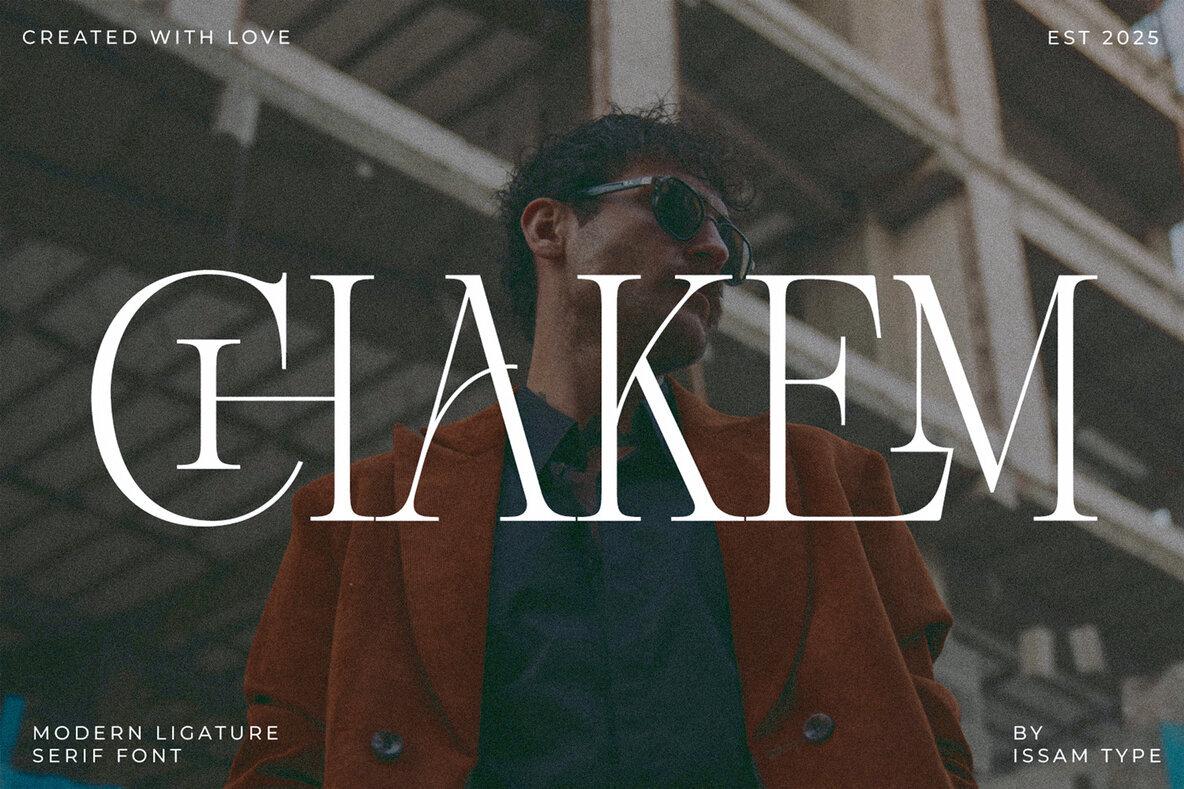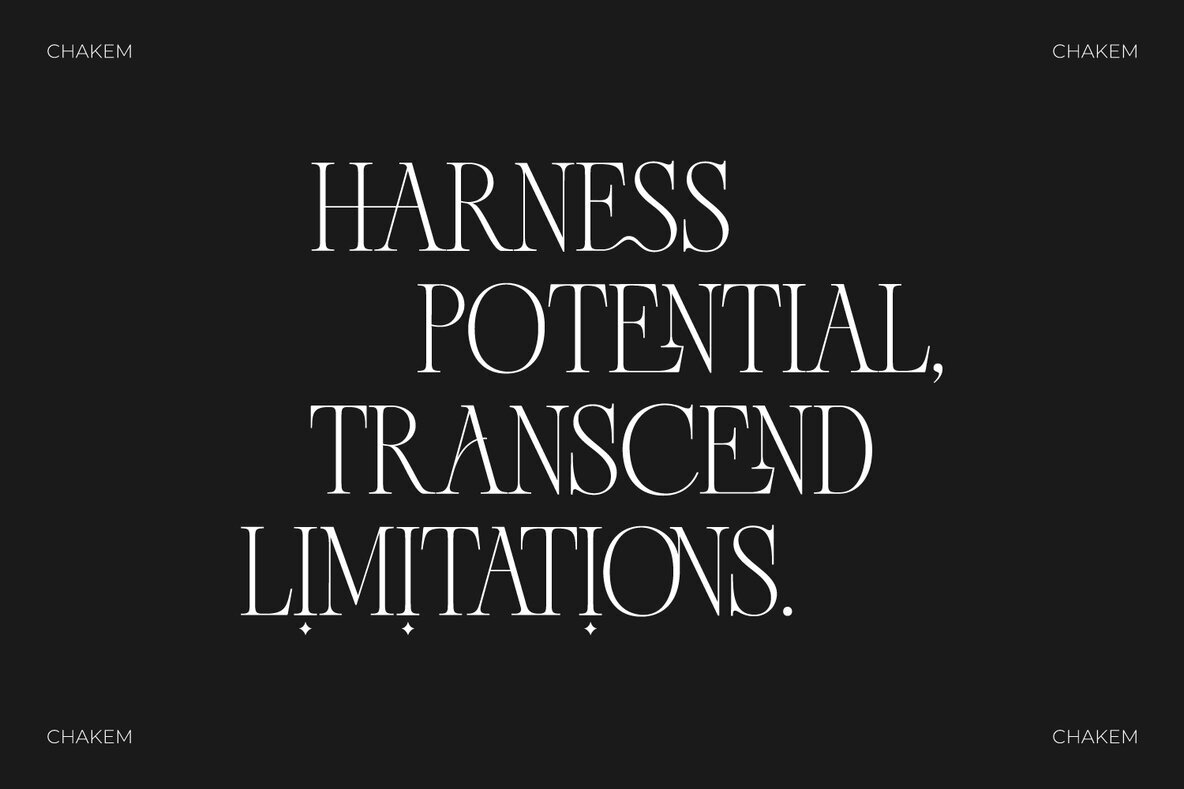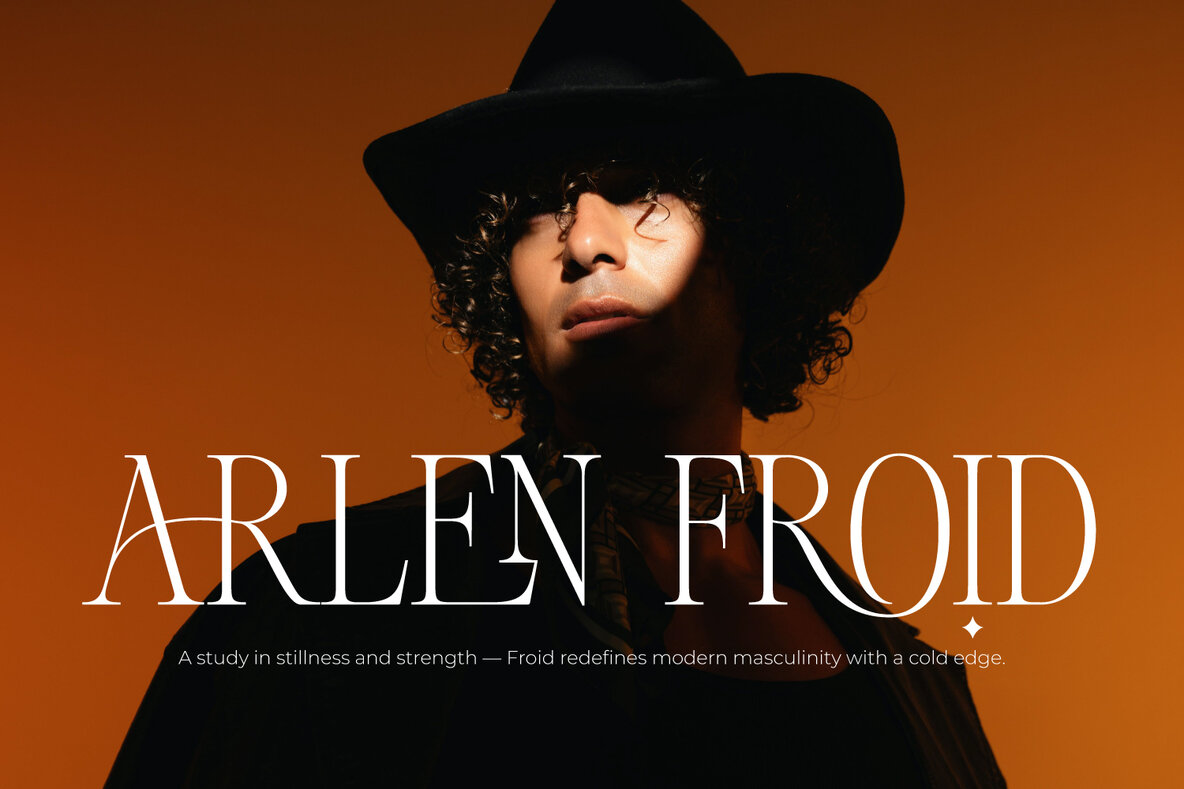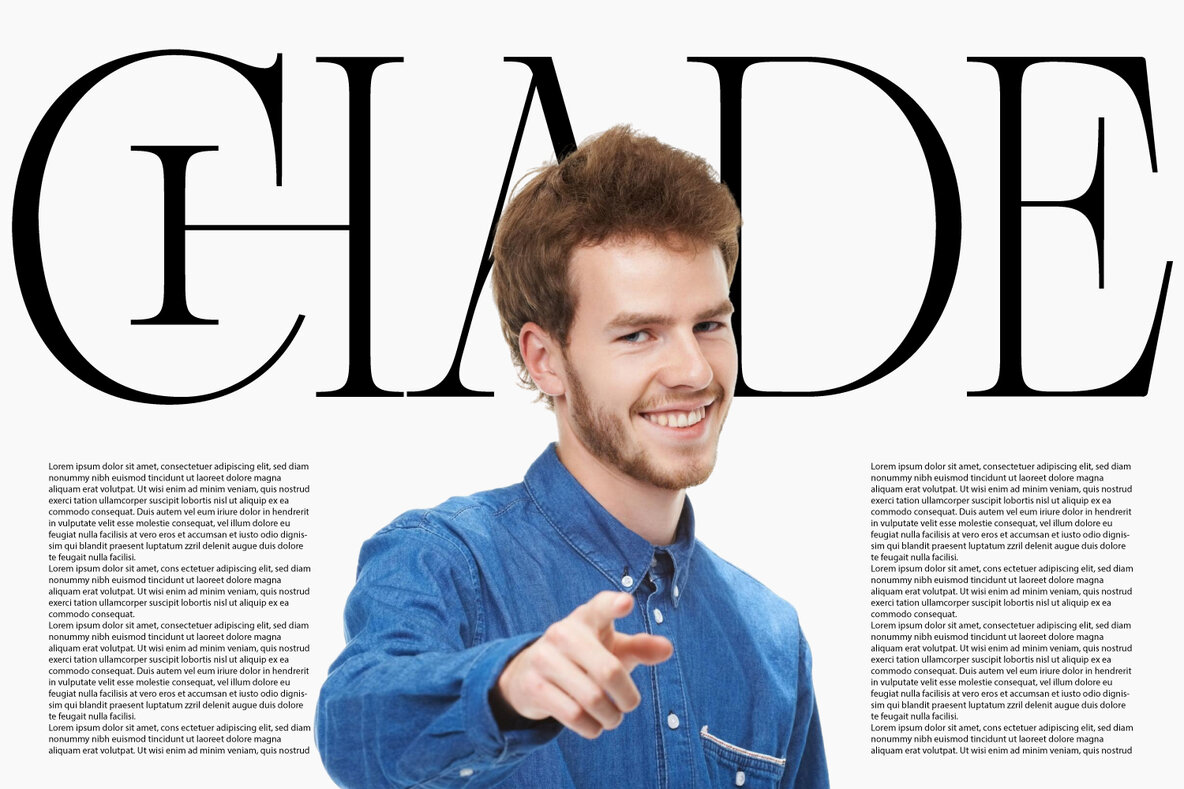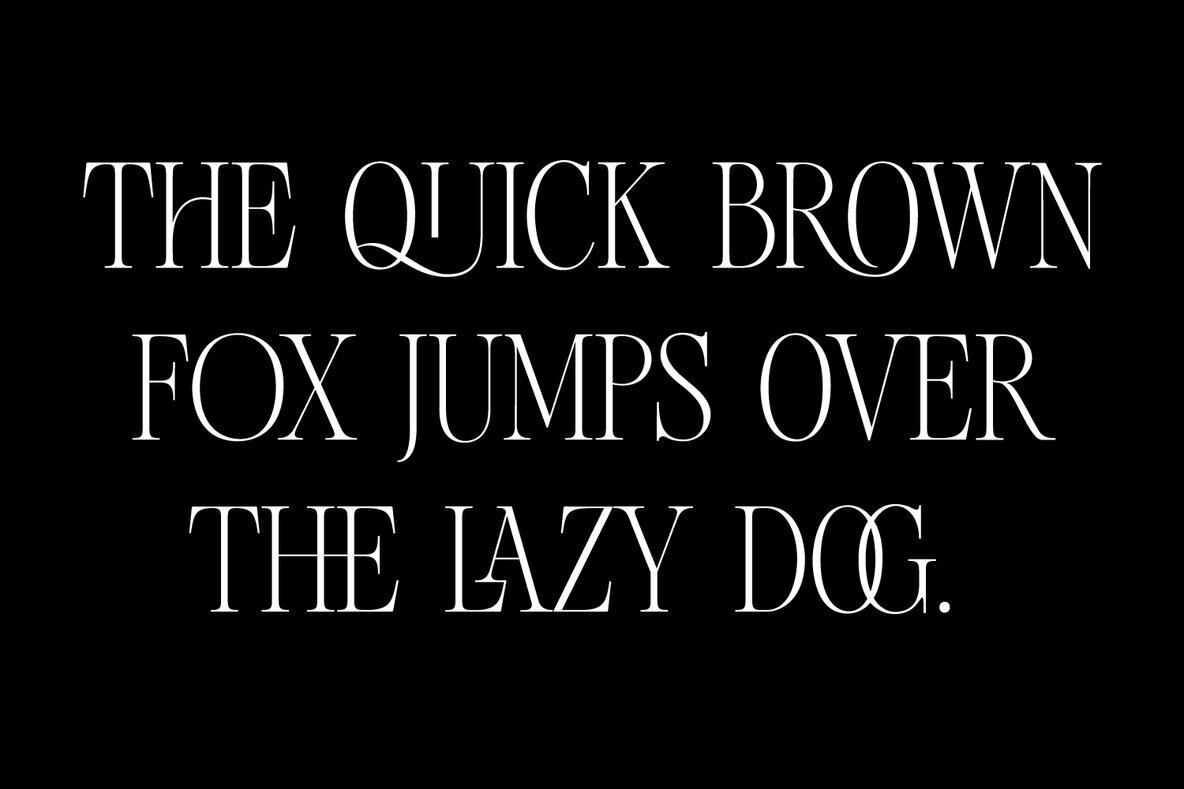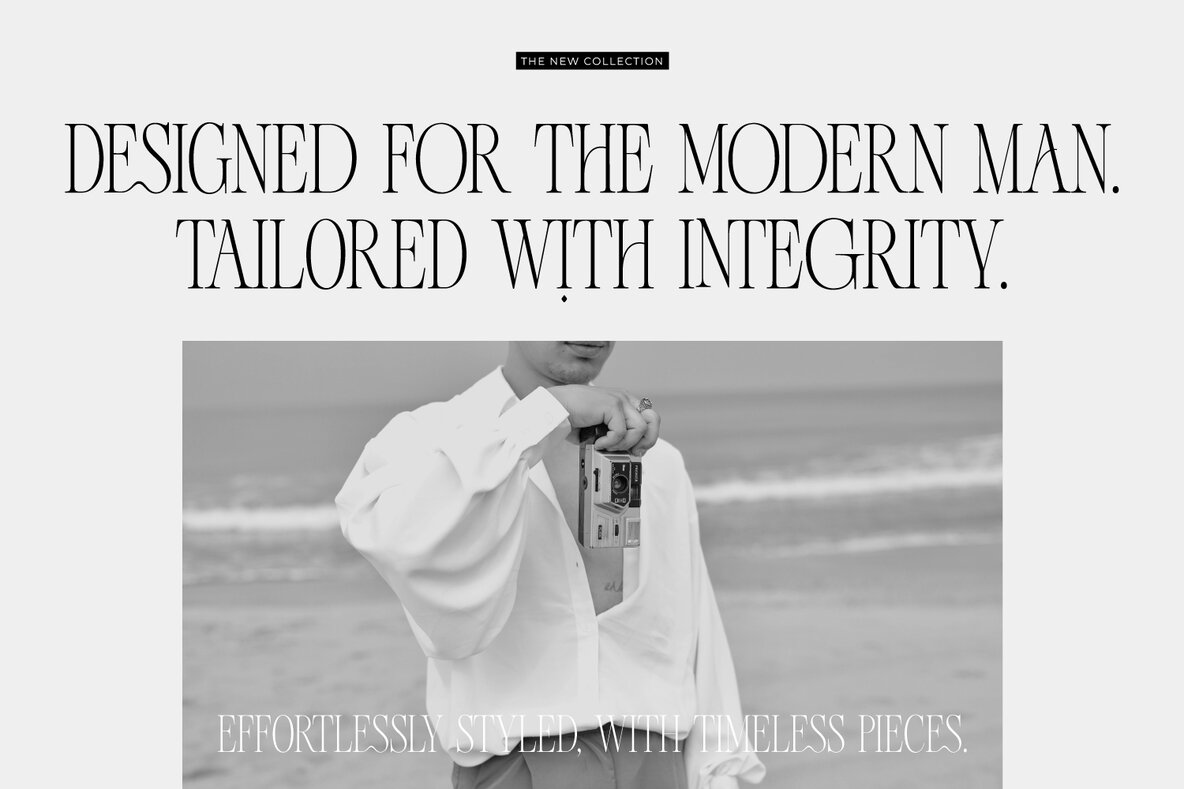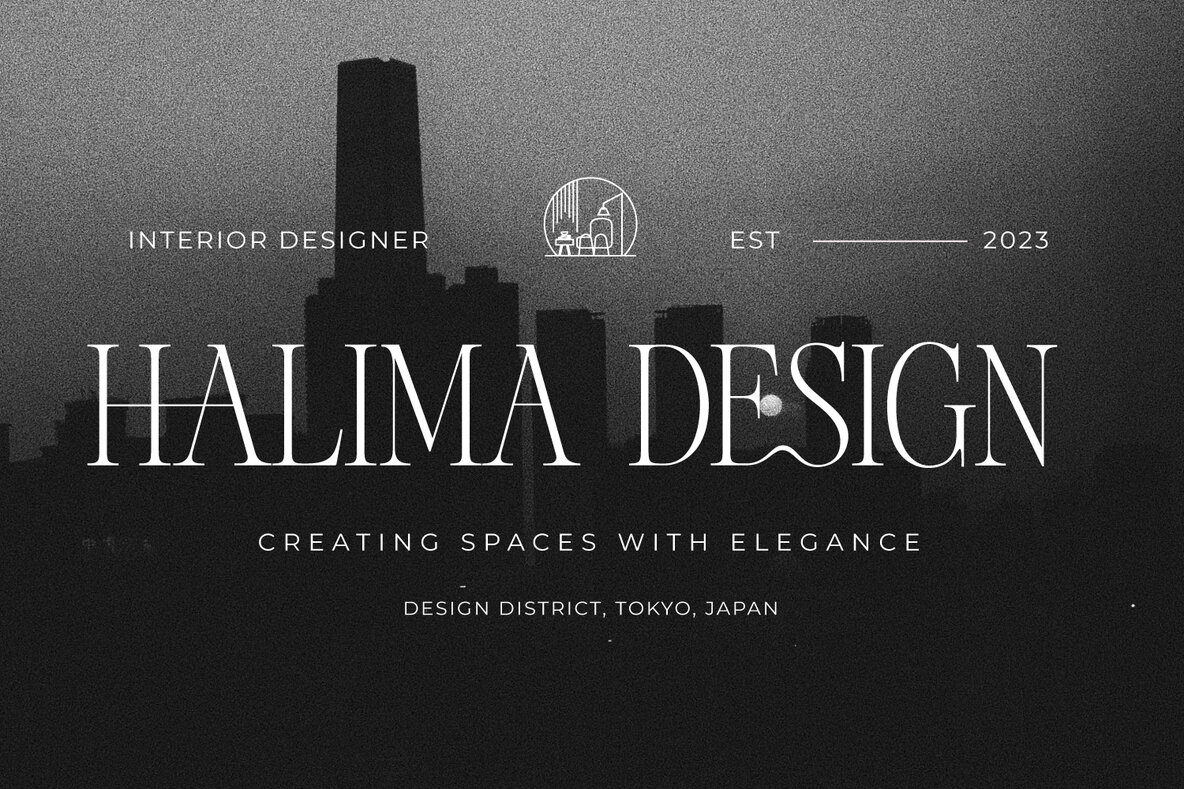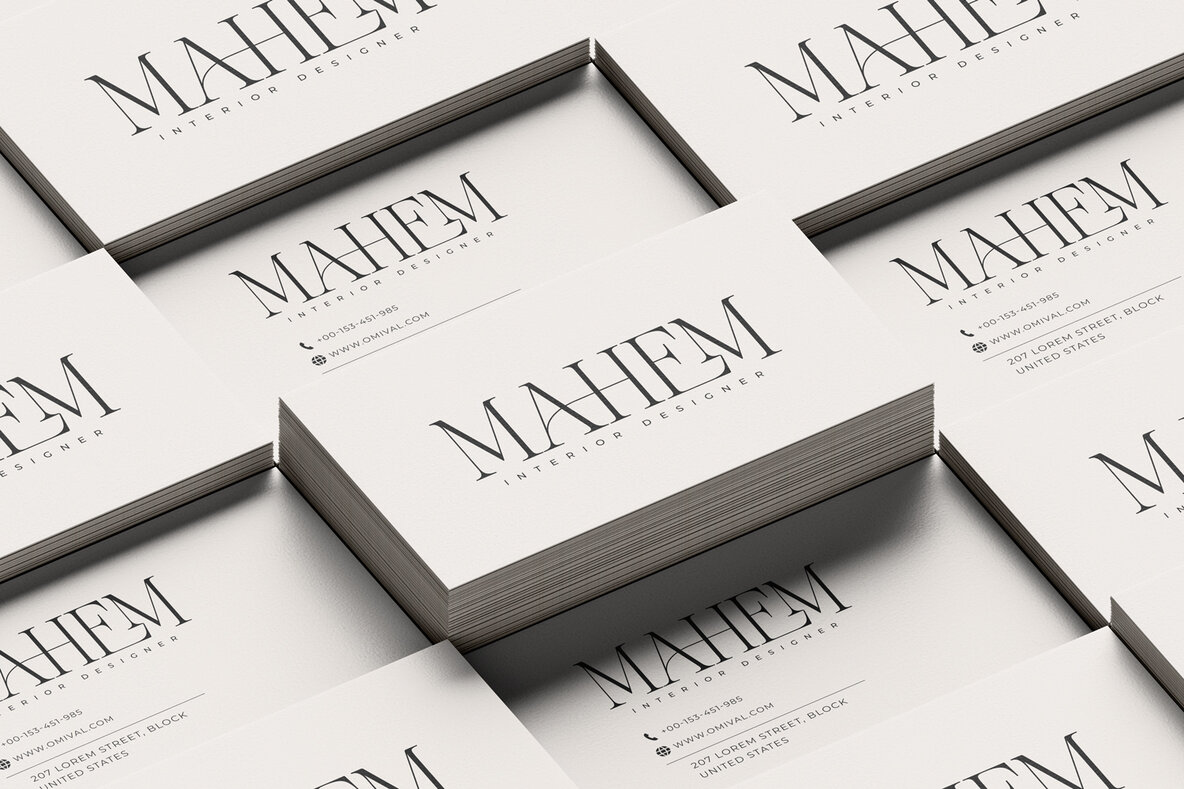
Chakem Font
Chakem Regular
Chakem Condensed
Chakem Rounded
Chakem Rounded Condensed
The Chakem font introduces a contemporary serif style that marries sharp elegance with imaginative ligature design. Its availability in Regular, Rounded, Condensed, and Rounded Condensed styles makes Chakem exceptionally versatile, catering to projects from fashion branding to magazine layouts and packaging designs.Chakem: Modern Serif with Creative Ligatures
Comprehensive Character Set